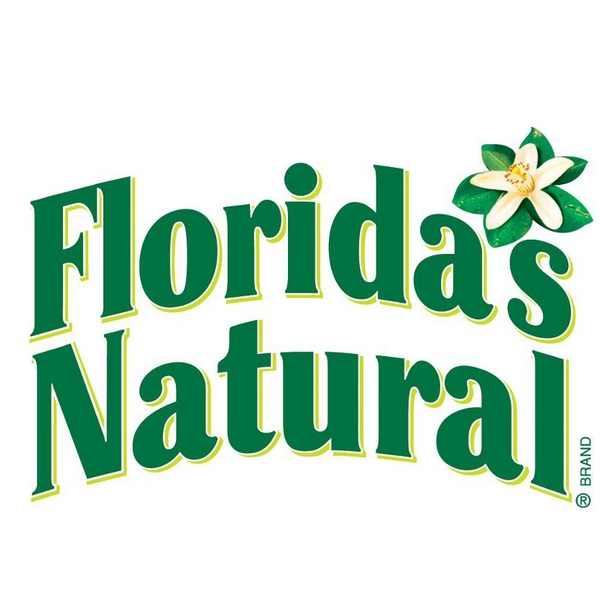
Florida’s Natural Font
Fonts in UseFlorida’s Natural Growers is a cooperative of citrus growers based in Florida, USA, that produces and markets premium quality orange juice and other citrus-based beverages. The company is committed to sustainable farming practices and supporting local communities.
It is likely that Florida's Natural logo was created using Cheltenham Bold, which was originally designed in 1896 by architect Bertram Goodhue and Ingalls Kimball. Further information on this typeface can be found here.